Cast Type Foundry
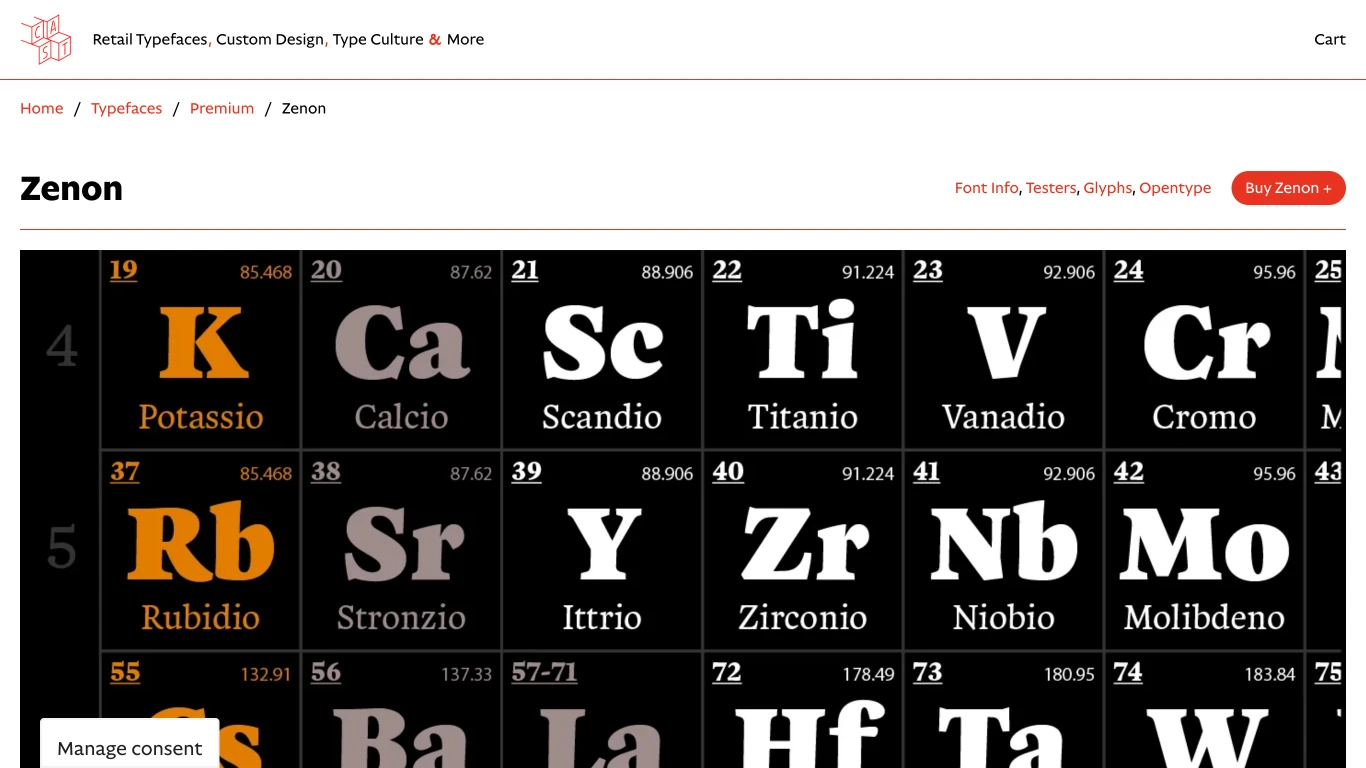
Italy
2013
CAST (Cooperativa Anonima Servizi Tipografici) is an independent digital type foundry established in 2014 as a cooperative in Bolzano, Italy. They specialize in creating high-quality, multi-style fonts that blend historical research with contemporary design. Notable typefaces include 'Sole Serif' and 'Sole Sans', the latter of which received the European Design Award Silver in 2019. In addition to their retail typefaces, CAST offers consulting services such as custom design, engineering, and training, actively promoting typographic culture through publications and articles.